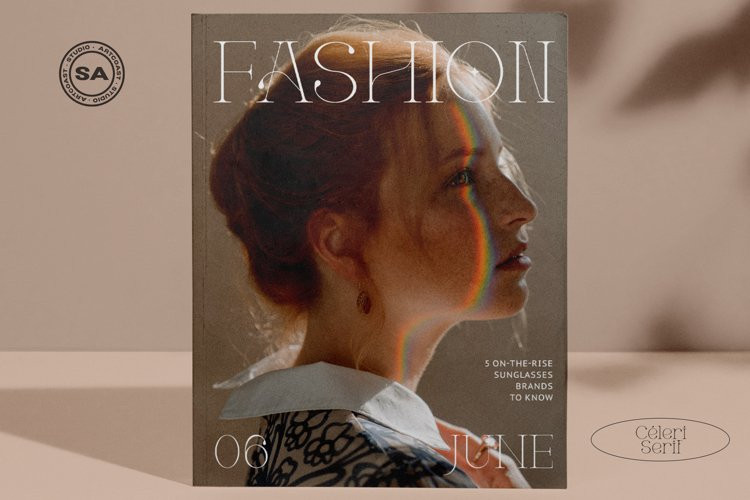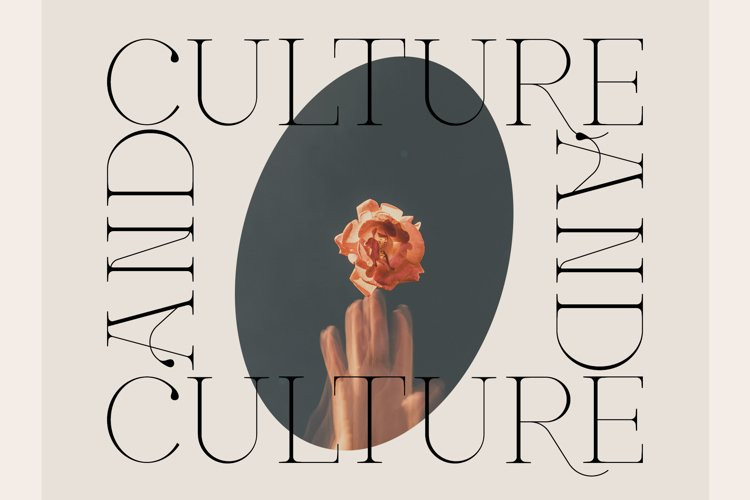
Celeri Font
Celeri FontIntroducing our new SA Céleri Typeface is perfect for branding, logos, invitation and more. SA Céleri is an unique and elegant font that we created based on current design trends.